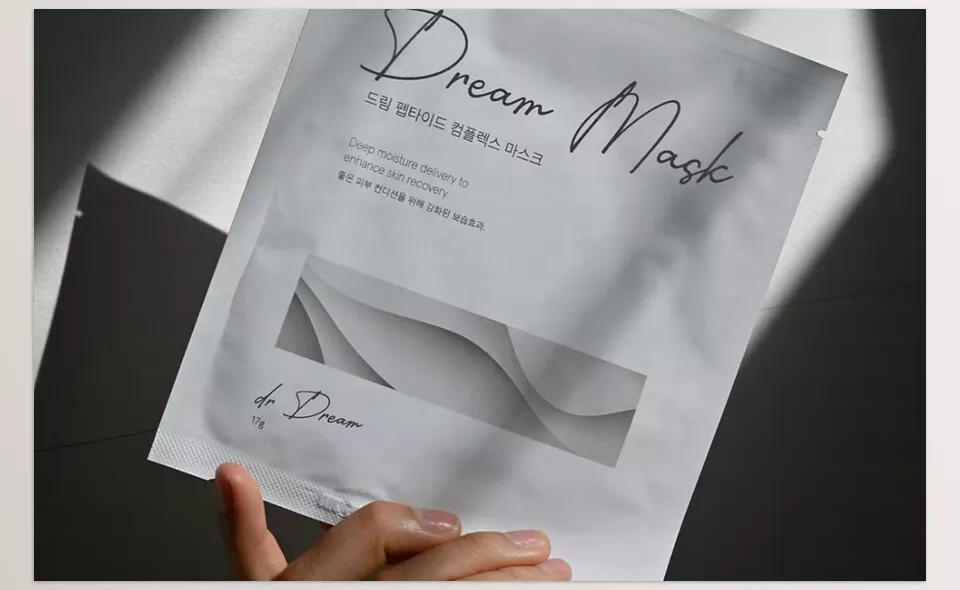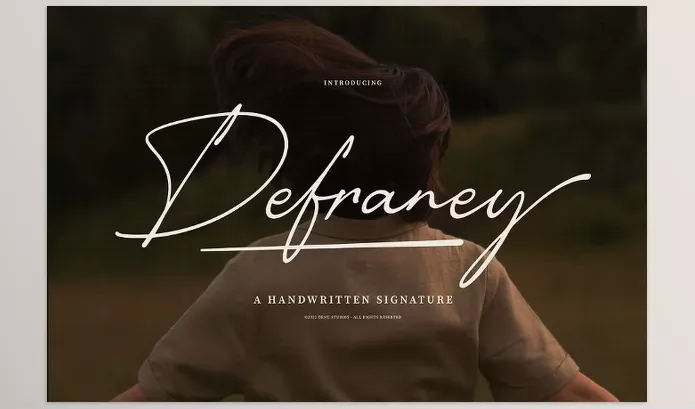
Defraney Handwritten Signature Font is an exquisite typeface handwritten font designed as a signature that enhances the creative aspect of any project. This font is the best choice for logos, branding, product packaging, and even event invitations, as it adds a personal mark and flair to your designs.
Denustudios – Defraney Handwritten Signature Font Features
• Versatile Use: Great for logos, branding, product packaging and more.
• Comprehensive Glyph Set: Includes standard glyphs, alternates, and ligatures.
Preview Defraney Handwritten Signature Font
Image 1: Elevate your designs with elegance and charm.
Defraney Handwritten Signature Font - Elevate your designs with elegance and charm.
Image 2: The perfect choice for a personalized touch in every project.
Defraney Handwritten Signature Font - The perfect choice for a personalized touch in every project.